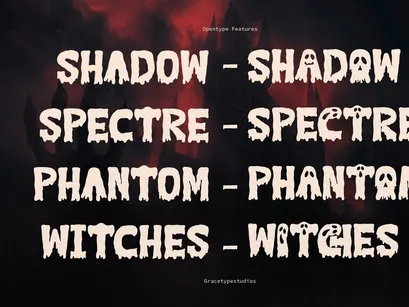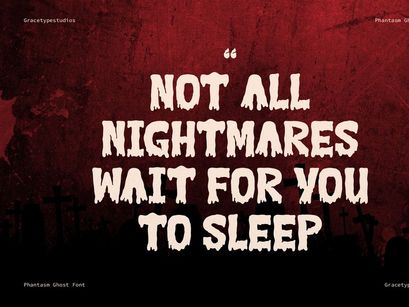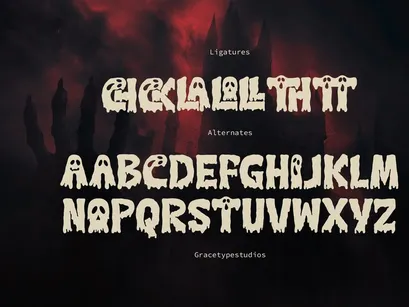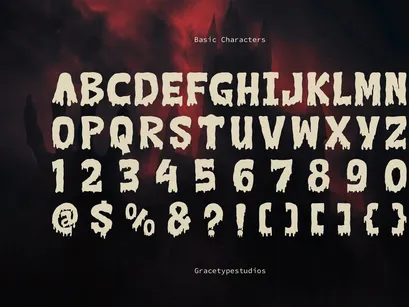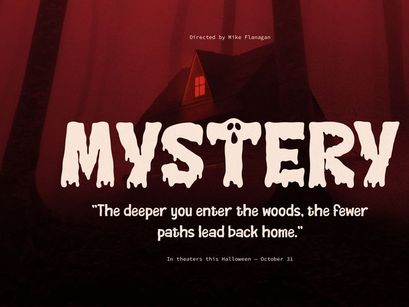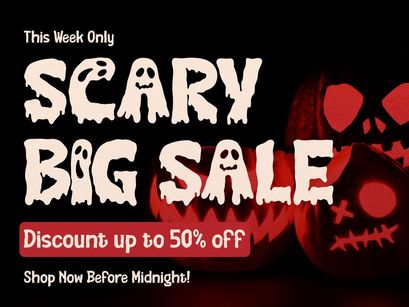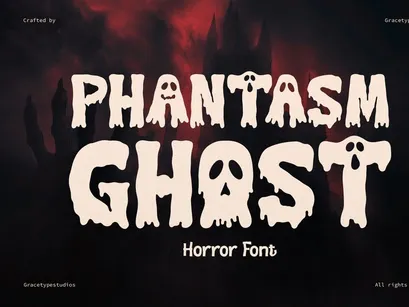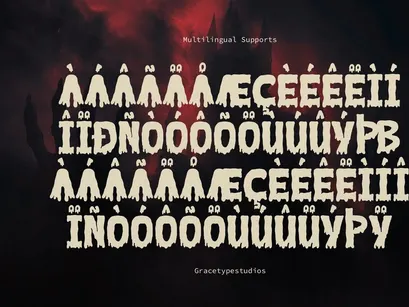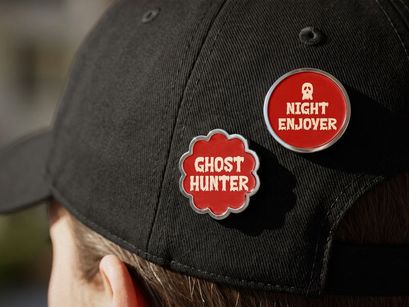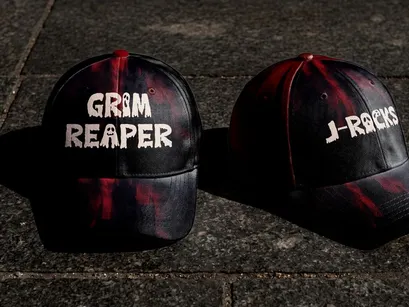
Phantasm Ghost | Horror Font, from Gracetypestudio, suitable for any projects such as: logos, branding projects, homeware designs, product packaging, mugs, quotes, posters, shopping bags, t-shirts, book covers, name card, invitation cards, greeting cards, label, photography, watermark, special events, and all your other lovely projects that need a Horror Font taste.